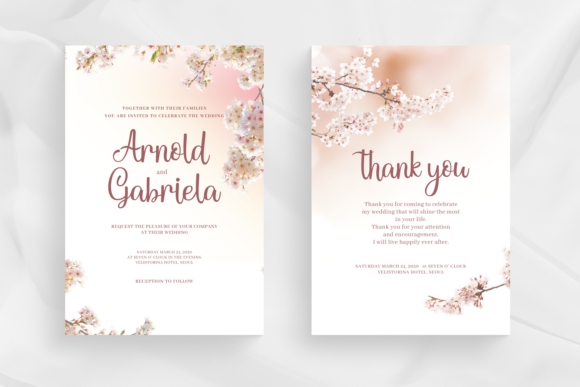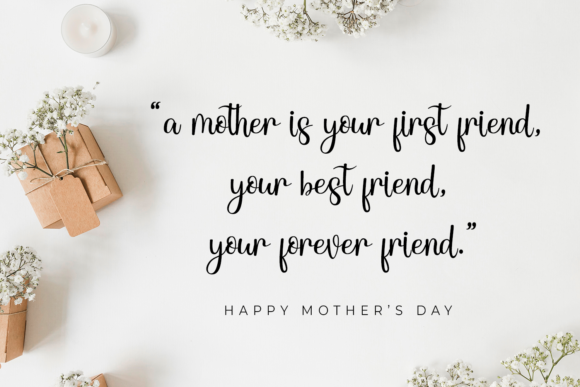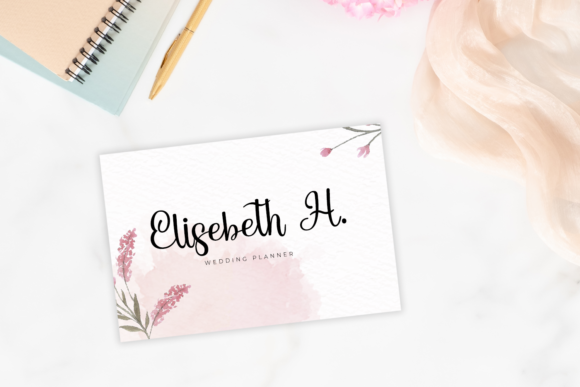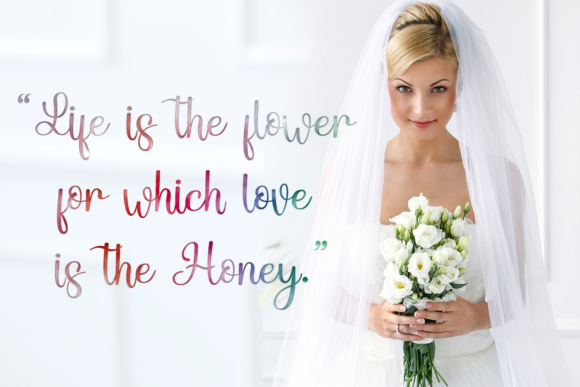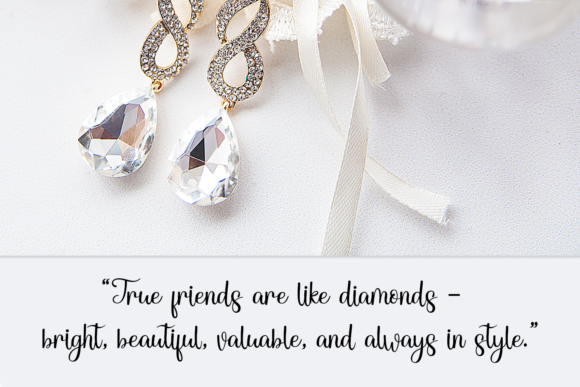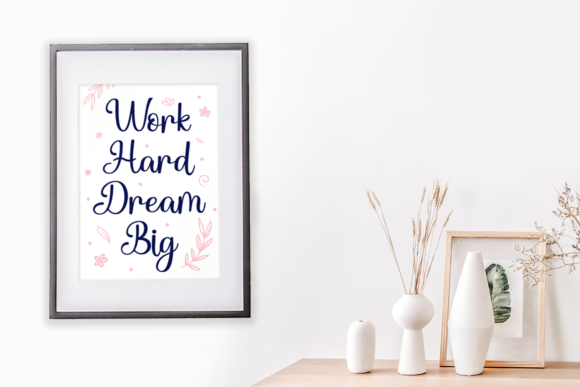
The Sweet Charm of Bashington Font: A Designer’s Delight
I’ll never forget the time I was working on a wedding invitation project, and my client asked for a font that was ” elegant, yet playful” and “totally unique.” I scoured the internet, tried out dozens of fonts, but nothing seemed quite right. That was until I stumbled upon Bashington Font. ✨ It was love at first sight! The delicate, handwritten strokes and sweet charm of Bashington instantly won me over. In this article, I’ll share my experience with this gorgeous font, its features, and how to make the most of it in your designs.
An Honest Review of Bashington Font
- ✨ Delicate and sweet handwritten feel that’s perfect for wedding invitations, stationery, and greeting cards
- ✅ Authentic and unique, making it stand out from more common fonts
- 💕 Highly legible, even at smaller font sizes
- 🎨 Great for creating eye-catching social media posts and blog graphics
- 🤔 Limited availability of stylistic alternates, which might limit its use in very specific design projects
- ⚠️ May not be the best choice for body text or long-form content due to its delicate nature
The Story Behind Bashington Font
Bashington Font was created with the intention of capturing the essence of handwritten elegance. Its designer drew inspiration from classic calligraphy and modern script fonts, aiming to create a unique and versatile typeface. The result is a font that’s both delicate and charming, perfect for a wide range of creative projects.
| Font Name | Bashington Font |
Q: What type of projects is Bashington Font best suited for?
A: Bashington Font is ideal for wedding invitations, stationery, greeting cards, social media posts, and blog graphics.
Q: Is Bashington Font available in different styles or weights?
A: Currently, Bashington Font is available in a single style, but its delicate and sweet nature makes it versatile enough for a wide range of design applications.
Q: Can I use Bashington Font for body text or long-form content?
A: While Bashington Font is highly legible, its delicate nature makes it more suitable for headlines, titles, and short-form content. For body text or long-form content, a more robust font might be more suitable.